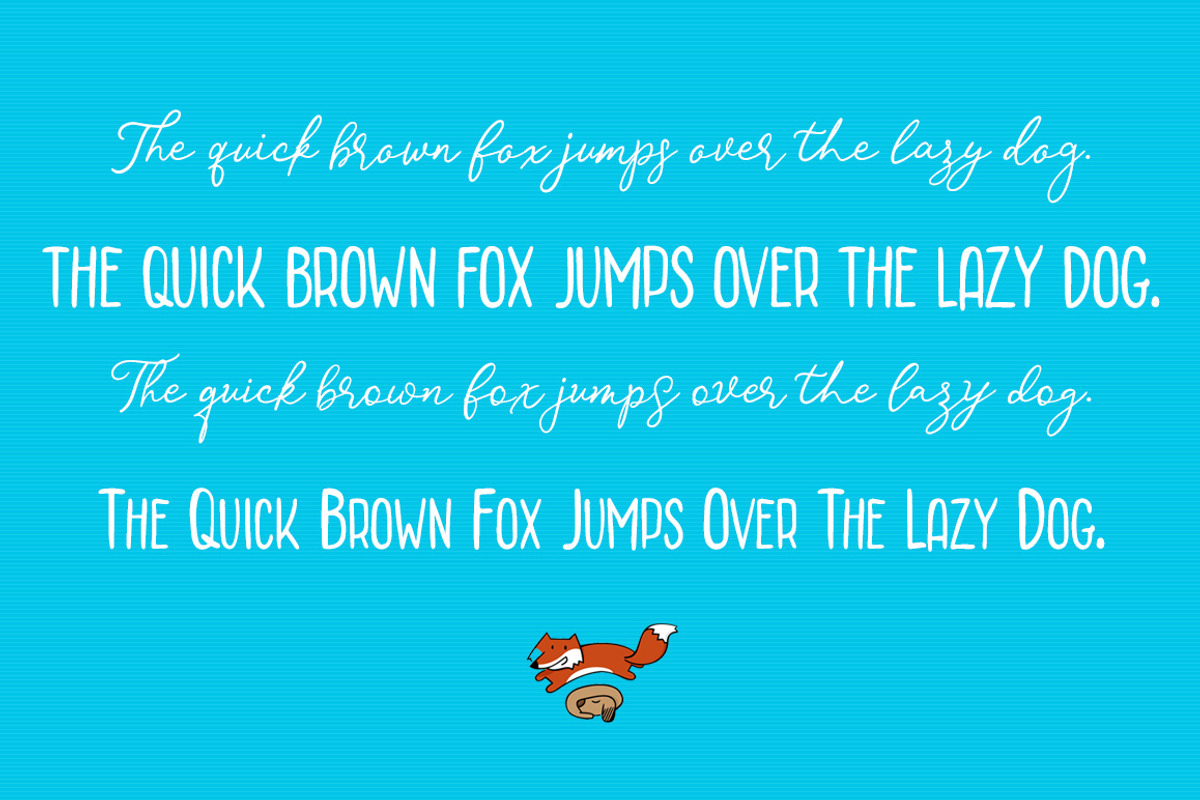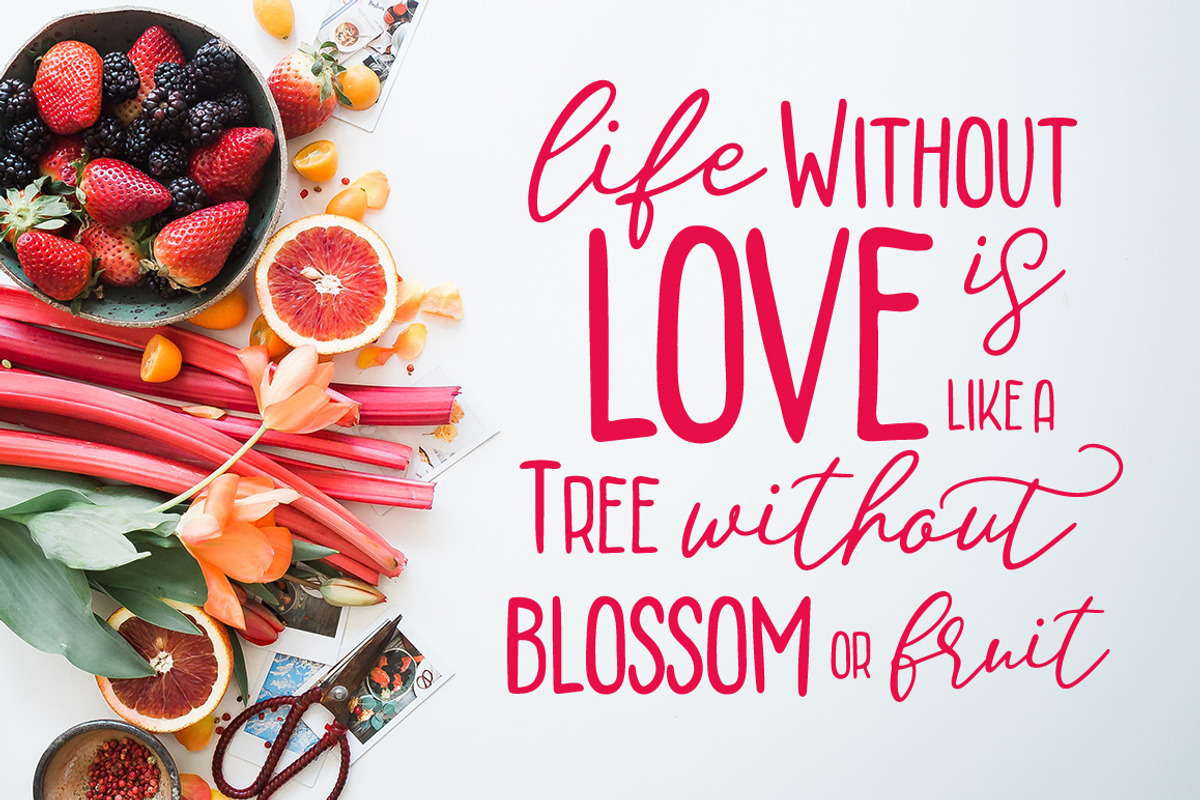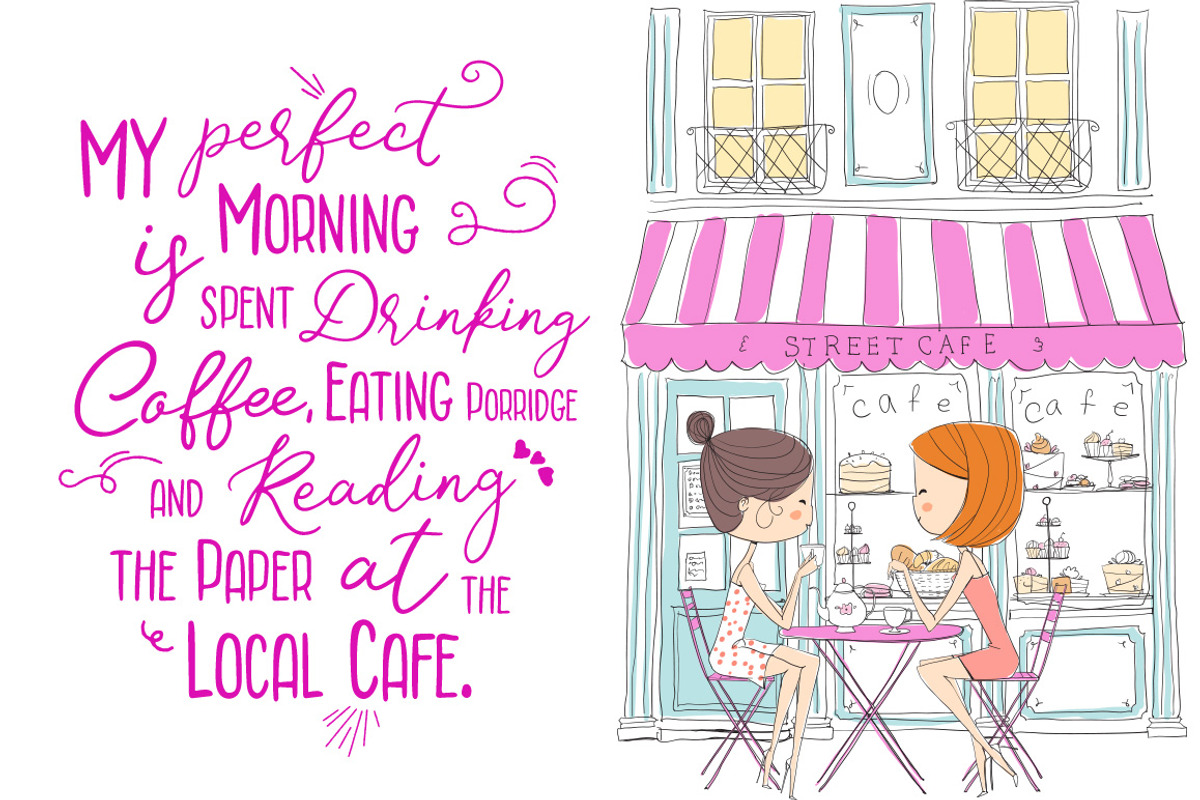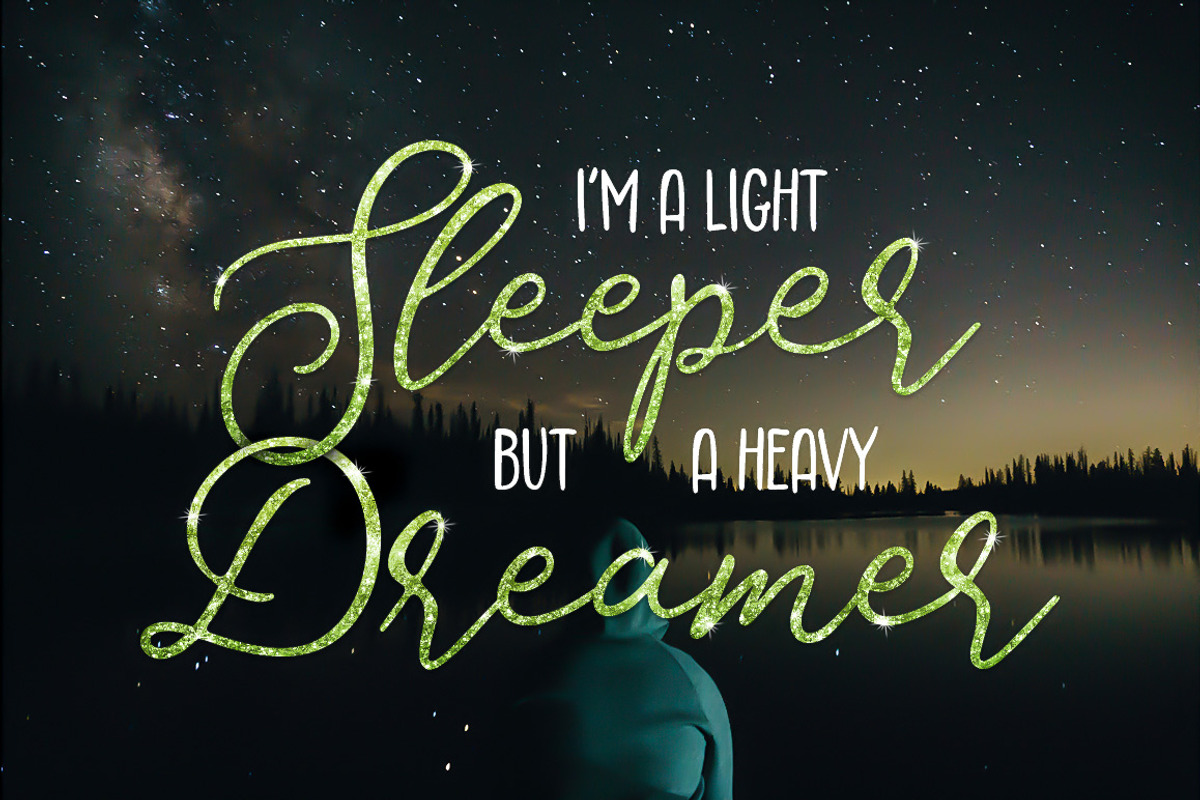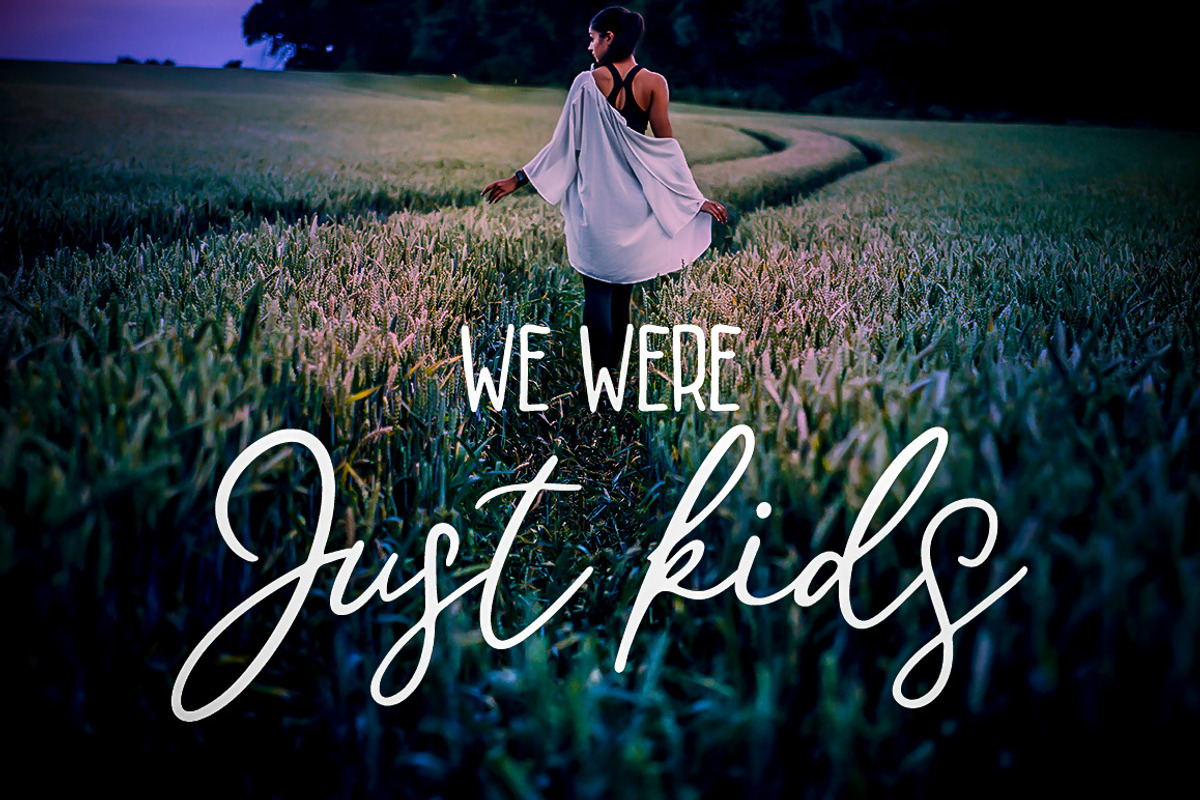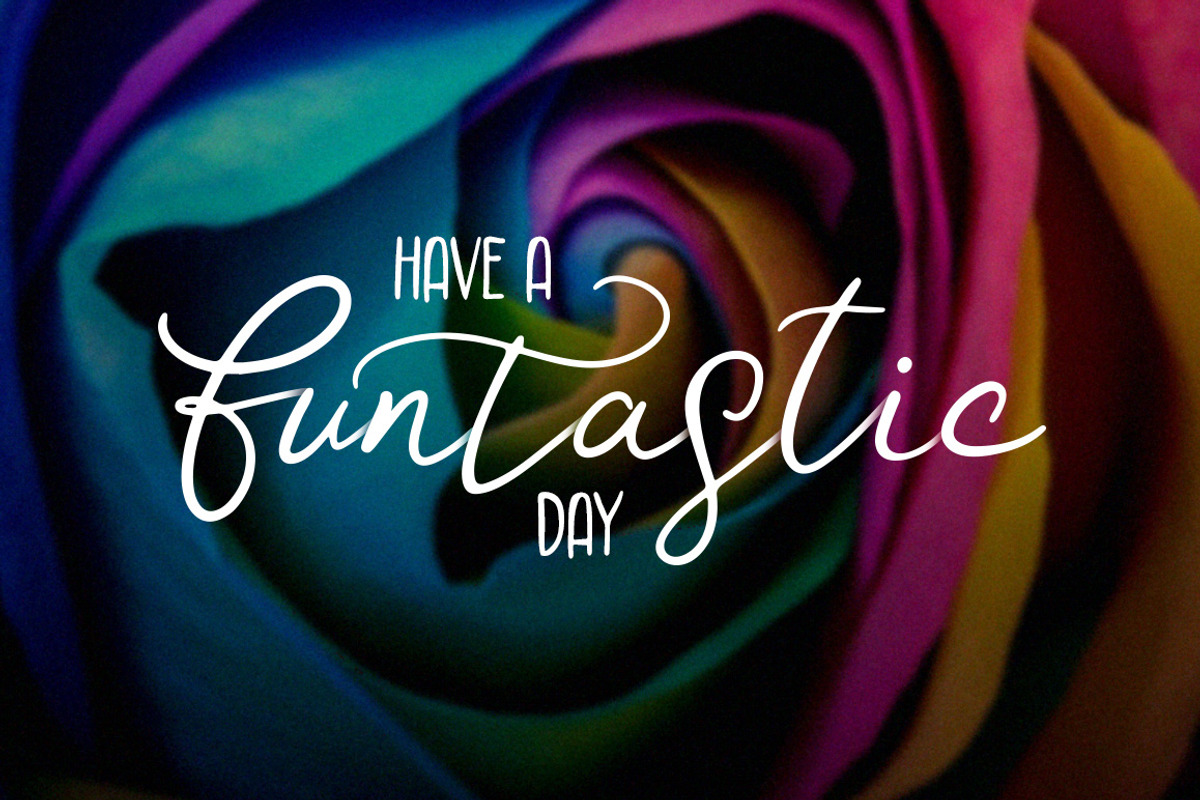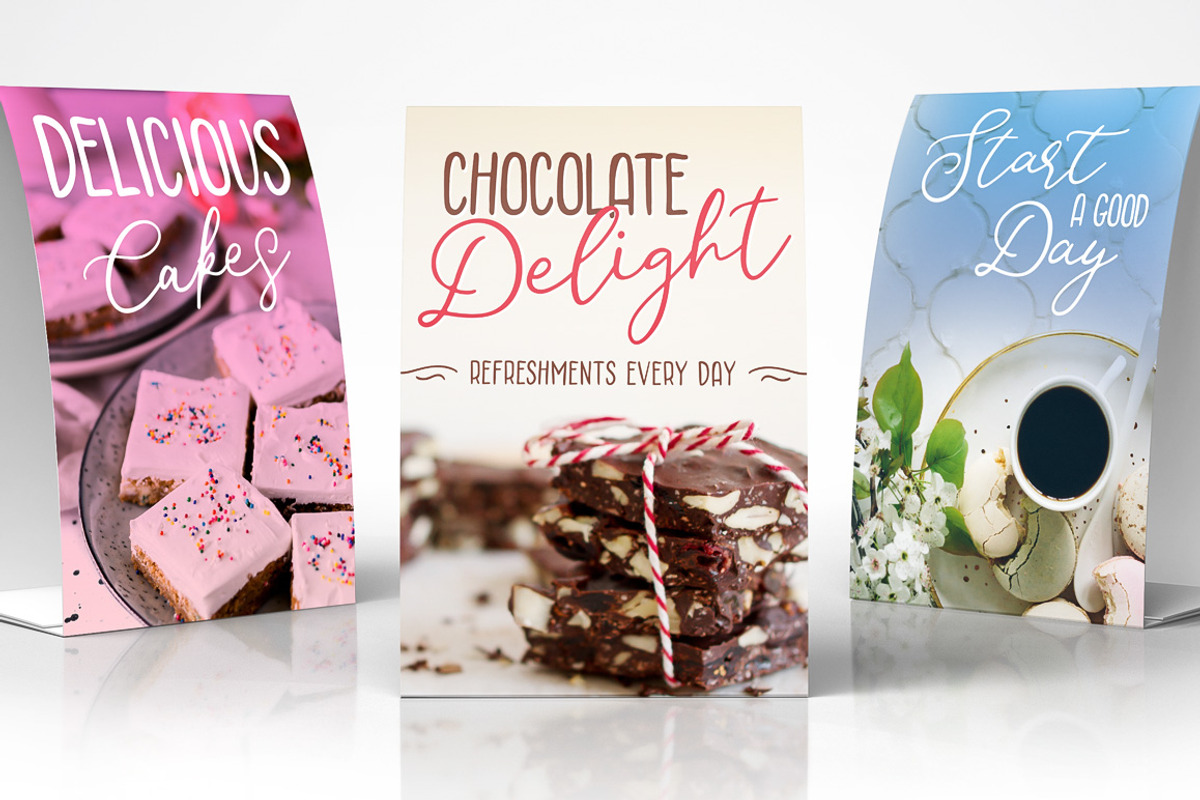
Mon Amour Font Duo
Mon Amour is a handwritten font duo made with love. Mon Amor comes with multilingual support for Western and Central Europe. Is ideal for restaurants, magazines, phone covers, social media, greeting cards, invitations, weddings, headers and many more.
This hand lettered font duo comes with a complete set of lowercase and uppercase characters, a large range of punctuation, ligatures, numerals and alternates for script version.
Mon Amour Script (OTF, TTF, WOFF) is a set of 445 glyphs, upper and lowercase characters with ligatures, numerals and lot of punctuation. Each character comes with 1-4 alternates.
Mon Amour Sans (OTF, TTF, WOFF) is a set of 307 glyphs, upper and lowercase characters, numerals and lot of punctuation. 21 decoration swirls in .AI format